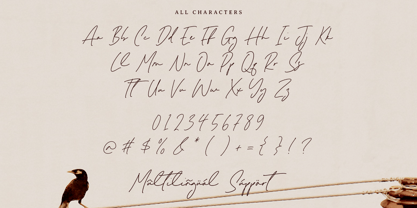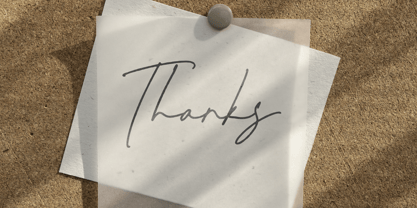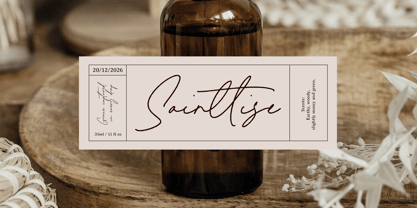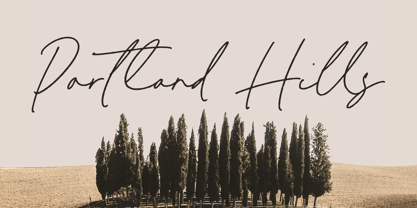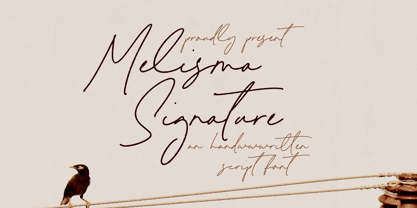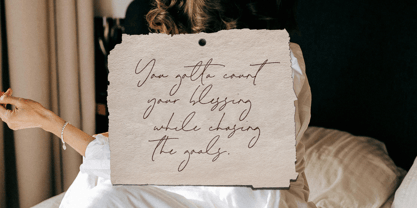
Melisma Signature
La familia tipográfica Melisma Signature fue diseñada por Ibnu Nur Rahman y publicada por Timurtype. Melisma Signature contiene 1 estilos. Más información sobre esta familia
Introduced by Timurtype Studio! Melisma Signature is a Handwritten Script Font This font is an elegant handwritten script font that blends sophisticated calligraphy with a fluid touch. Featuring smooth, flowing lines and stylish loops, it captures the essence of a graceful signature, making it perfect for branding, invitations, or any design that seeks a warm, authentic feel. Its natural, yet polished aesthetic brings a unique, artistic flair to both formal and casual projects. Melisma Signature Font also supports multilingualism Enhance your designs with our original fonts, feel free to comment or provide feedback, Enjoy the fonts 😊 Thank You